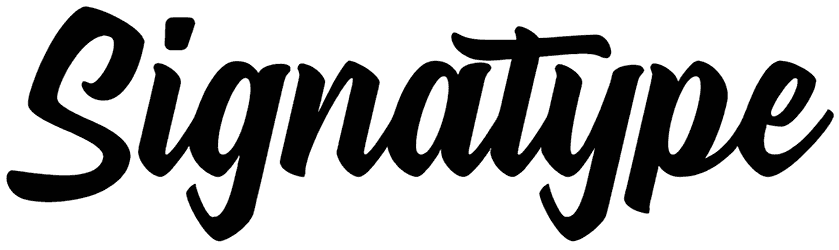
Signatype Font
The Signatype font is included in the collection of calligraphic fonts, and due to the swash characters that this old school font has, you can use it in various applications. One of the most wonderful uses of this script font can be in the design of beverage labels, covers of historical books, and many posters of Japanese and Korean movies and video games.